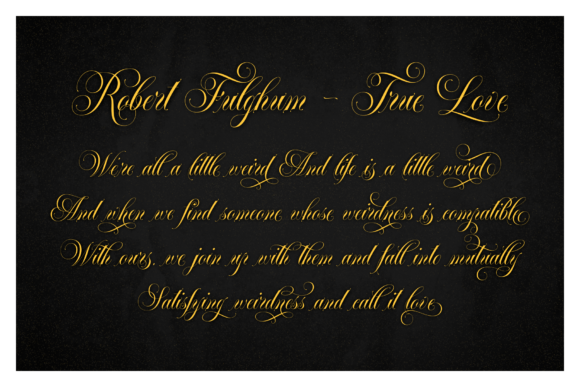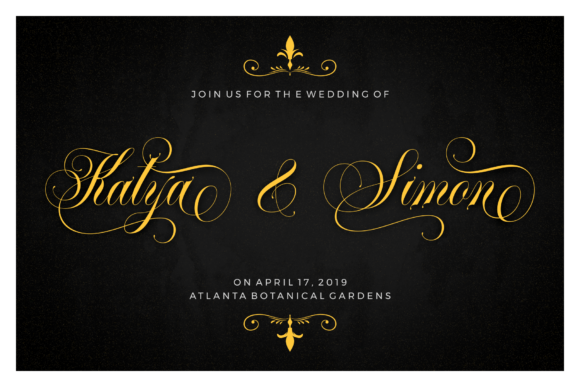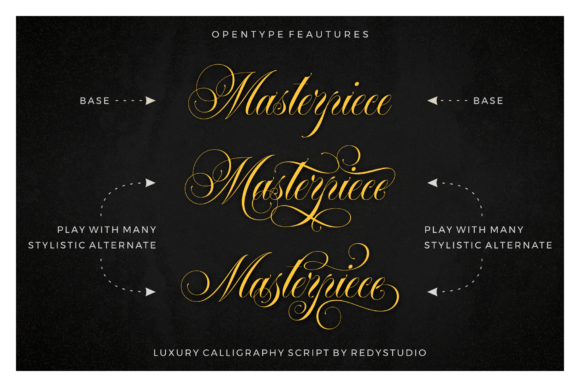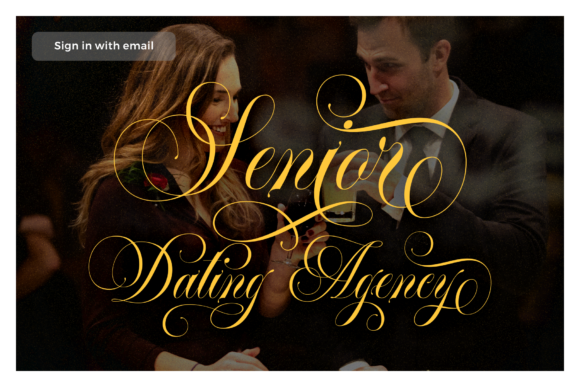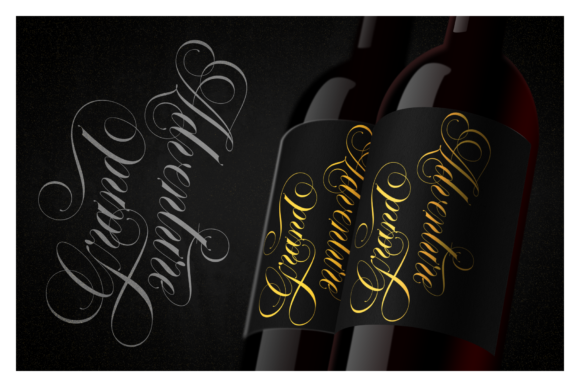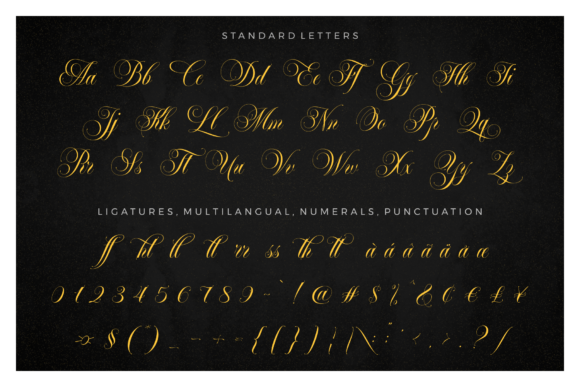
Banda Neira Font: Elevate Your Designs with a Touch of Elegance and Whimsy
In the vast and ever-evolving world of typography, finding the perfect font that adds a unique touch to your design projects can be a daunting task. However, if you’re looking for a playful yet elegant handwritten font that exudes charm and sophistication, look no further than Banda Neira. This stunning font is designed to capture the essence of creativity and fun, making it an ideal choice for designers and crafters alike. With its bold swashes and distinctive character, Banda Neira has the power to transform any design project into a standout masterpiece.
The Unique Charm of Banda Neira
Banda Neira Font is a true gem in the realm of typography. Its design strikes the perfect balance between playfulness and elegance, making it versatile enough to be used in a wide array of design projects. From branding and packaging to invitations and digital content, Banda Neira brings a fresh and modern vibe that is sure to captivate your audience. The font’s unique charm lies in its handcrafted feel, which adds a personal touch to any design, making it more relatable and engaging.
Key Features of Banda Neira Font
- Playful yet Elegant: Banda Neira boasts a playful spirit with an underlying elegance that elevates it above your average handwritten fonts.
- Bold Swashes: One of the standout features of Banda Neira is its bold swashes. These decorative strokes add a dynamic and sophisticated element to your designs, making them instantly more eye-catching.
- Unique Character: Each letter in Banda Neira is crafted with love and care, ensuring that your designs have a unique character that sets them apart from the rest.
- Versatility: Whether you’re working on a branding project, creating wedding invitations, or designing digital content, Banda Neira’s versatility ensures it fits right in.
How to Use Banda Neira in Your Design Projects
- Branding and Logo Design: Use Banda Neira to create a memorable logo or to develop a cohesive brand identity that speaks to your audience.
- Stationery and Invitations: Add a touch of elegance and whimsy to your stationery, wedding invitations, or greeting cards with Banda Neira.
- Digital Content: Enhance your website, blog, or social media posts with Banda Neira. Its readability and charm make it perfect for headings and titles.
- Packaging Design: Stand out on the shelves with packaging that features Banda Neira. Its unique and eye-catching style is sure to draw customers in.
Why Choose Banda Neira Font?
With so many fonts available, why should Banda Neira be your go-to choice? The answer lies in its ability to bring a fresh and distinctive voice to your designs. In a world where standing out is more challenging than ever, Banda Neira offers a breath of fresh air. Its blend of playfulness and sophistication ensures that your designs are not only visually appealing but also memorable.
Banda Neira Font is more than just a typeface; it’s a design statement. Its playful yet elegant nature, coupled with bold swashes and a unique character, makes it an invaluable asset for designers and crafters looking to elevate their projects. Whether you’re aiming to create a stunning brand identity, design beautiful stationery, or enhance your digital content, Banda Neira is the perfect companion. So, why settle for ordinary when you can make your designs stand out with Banda Neira?